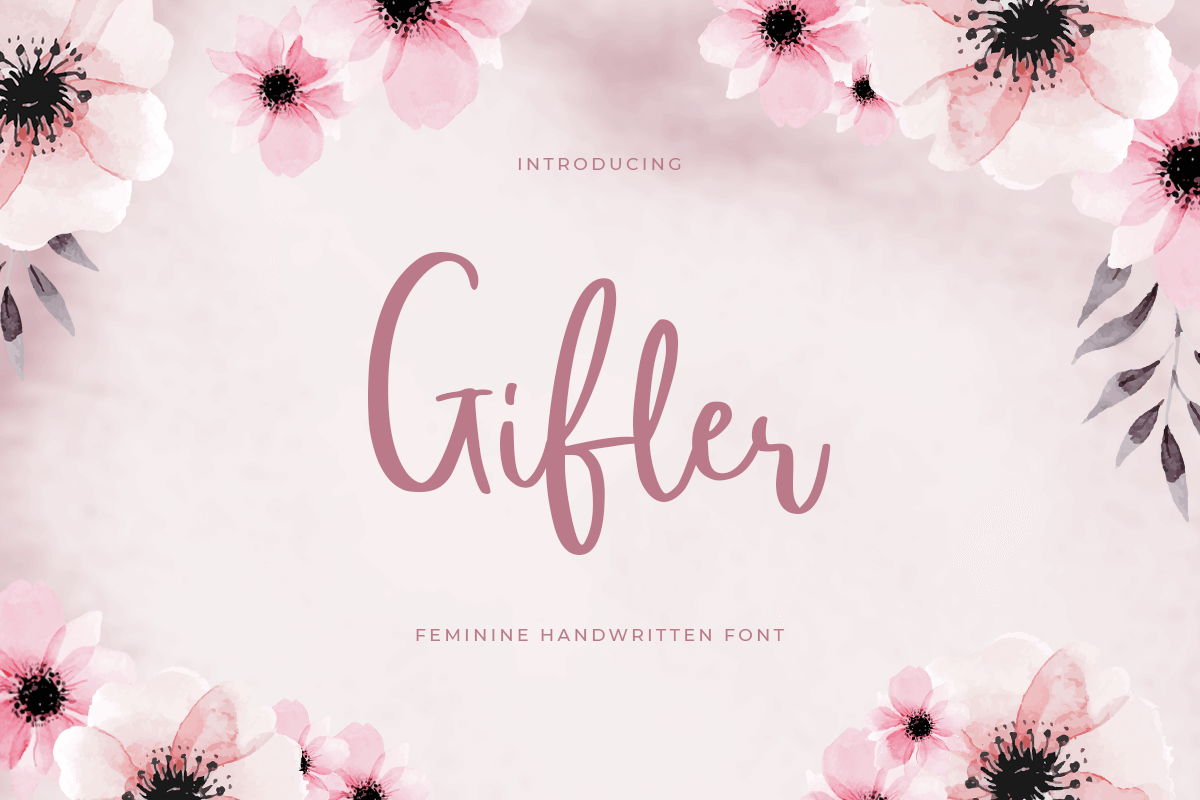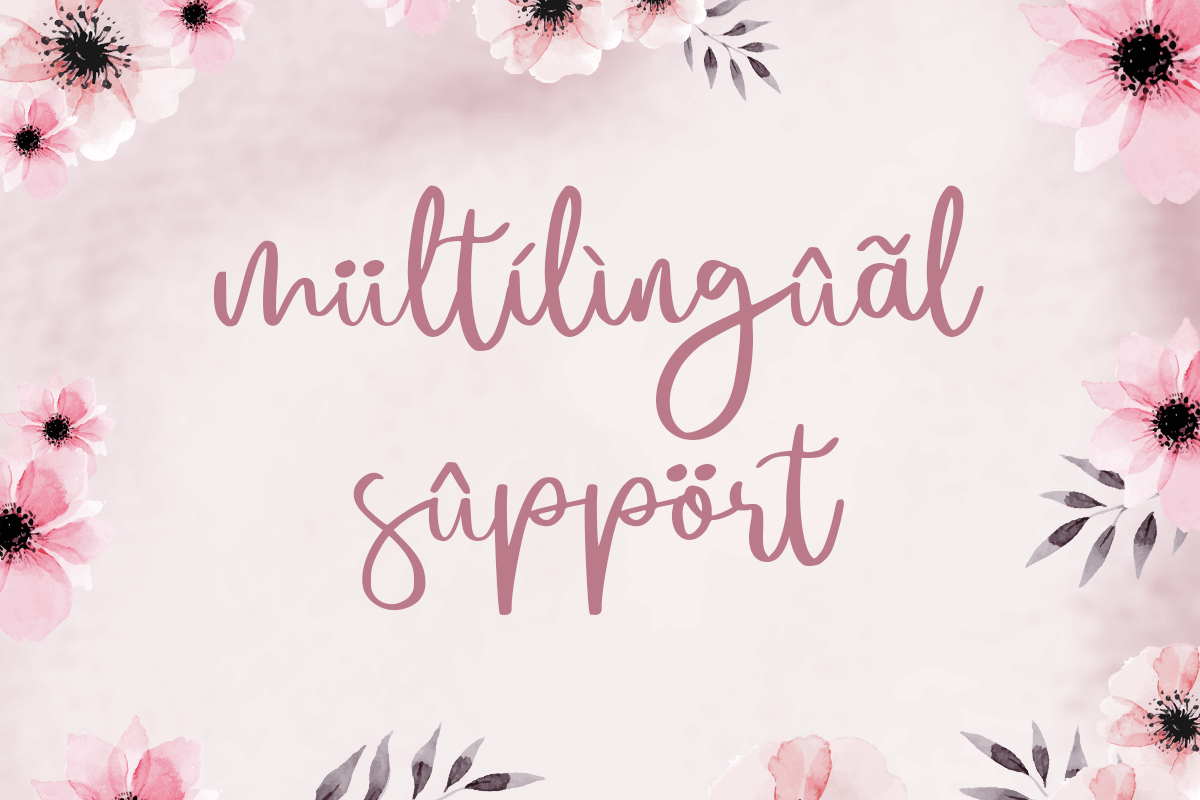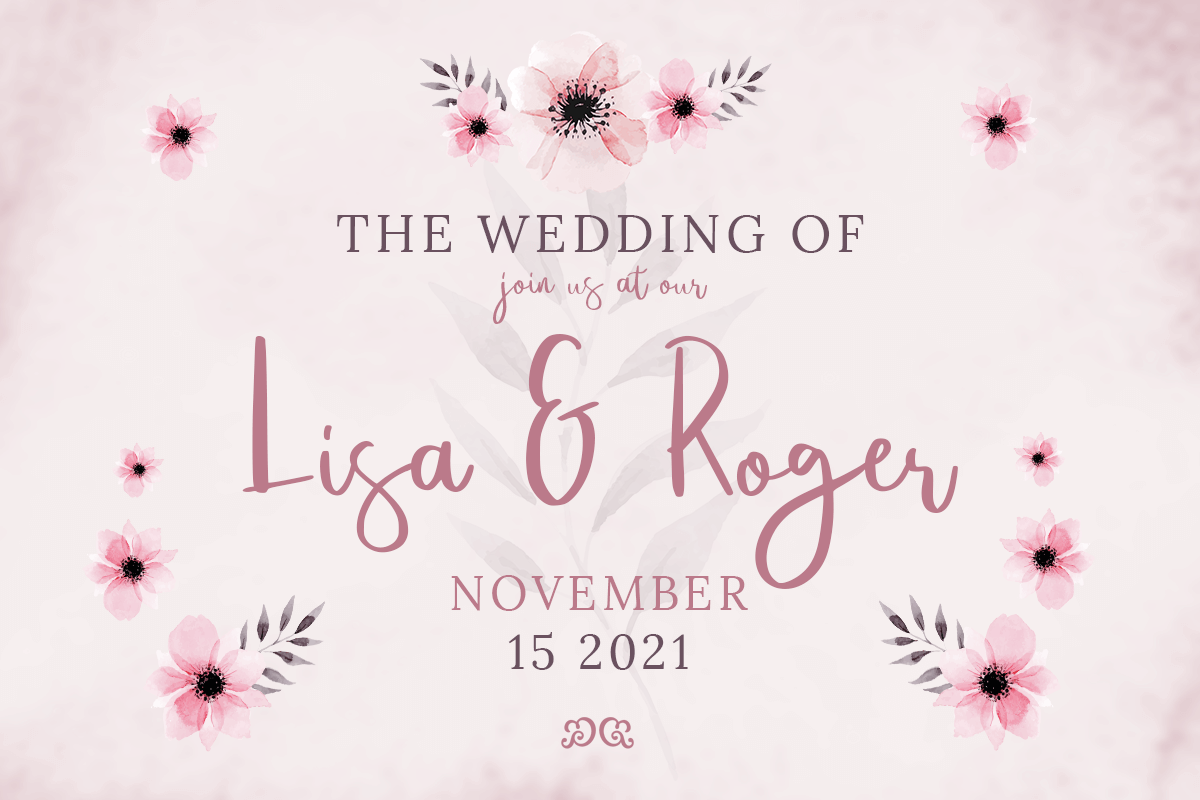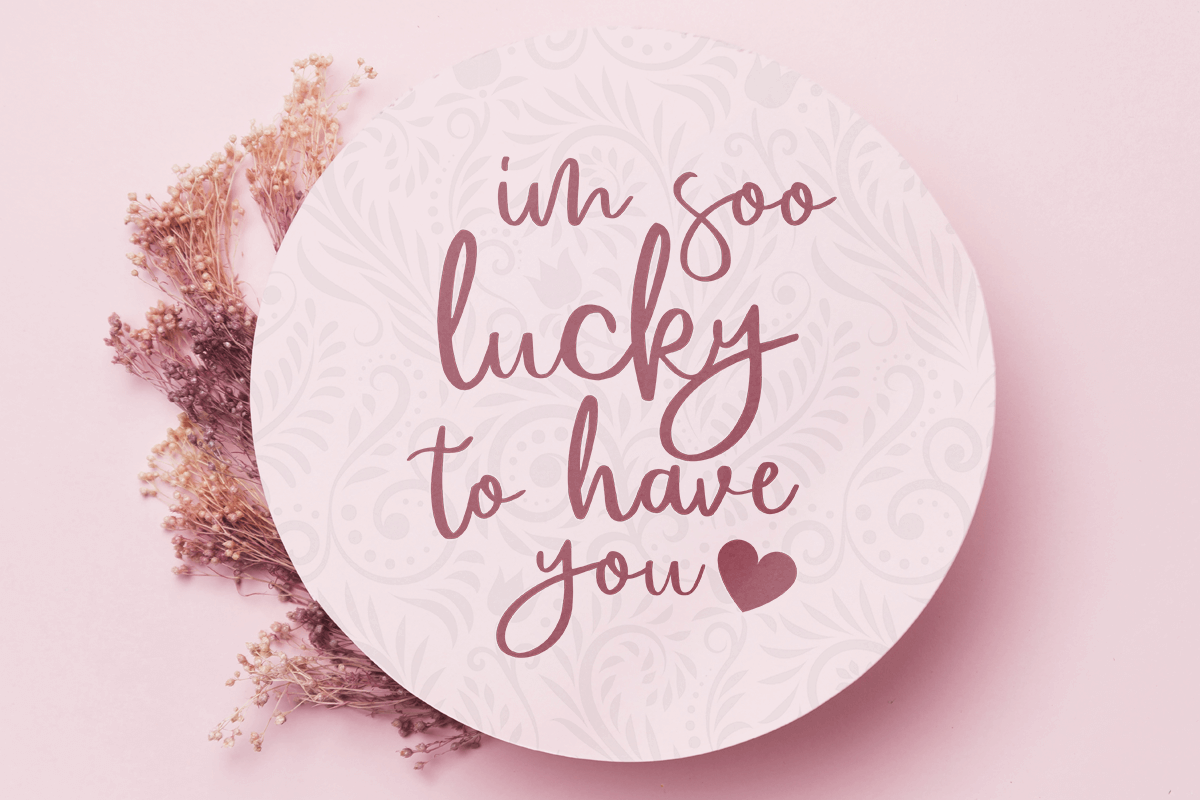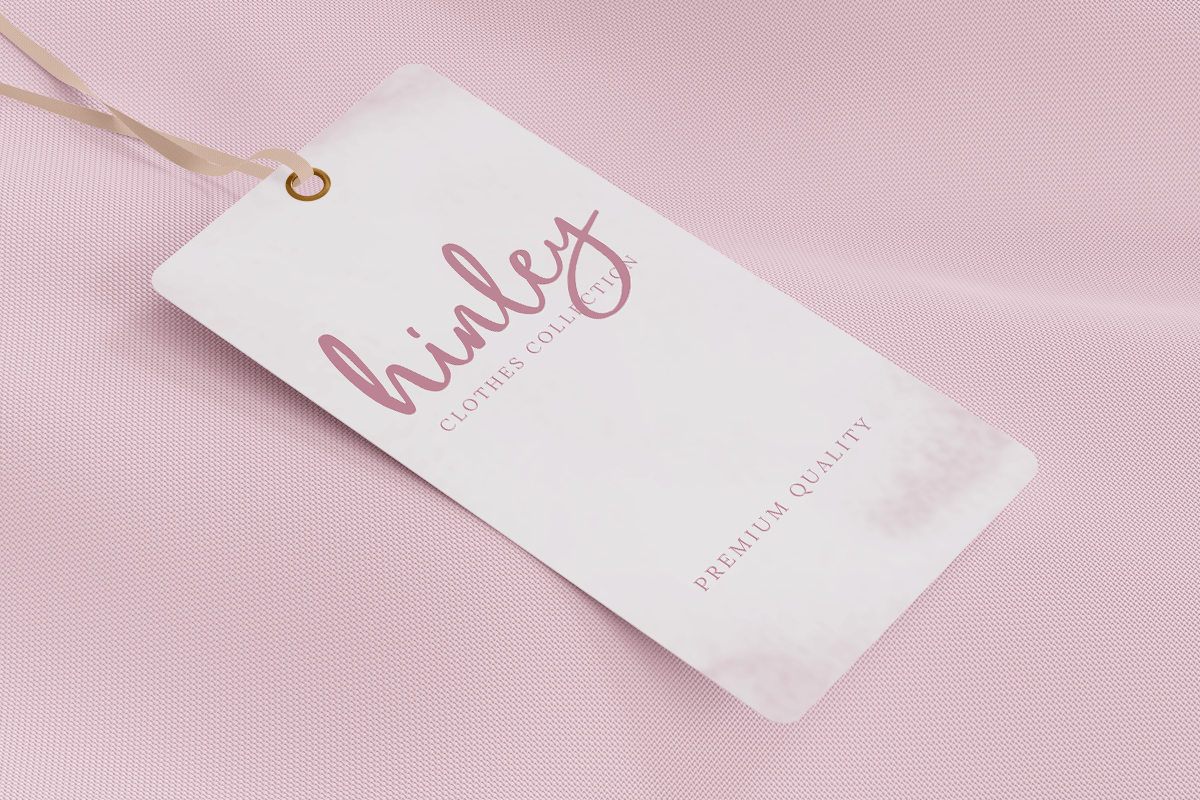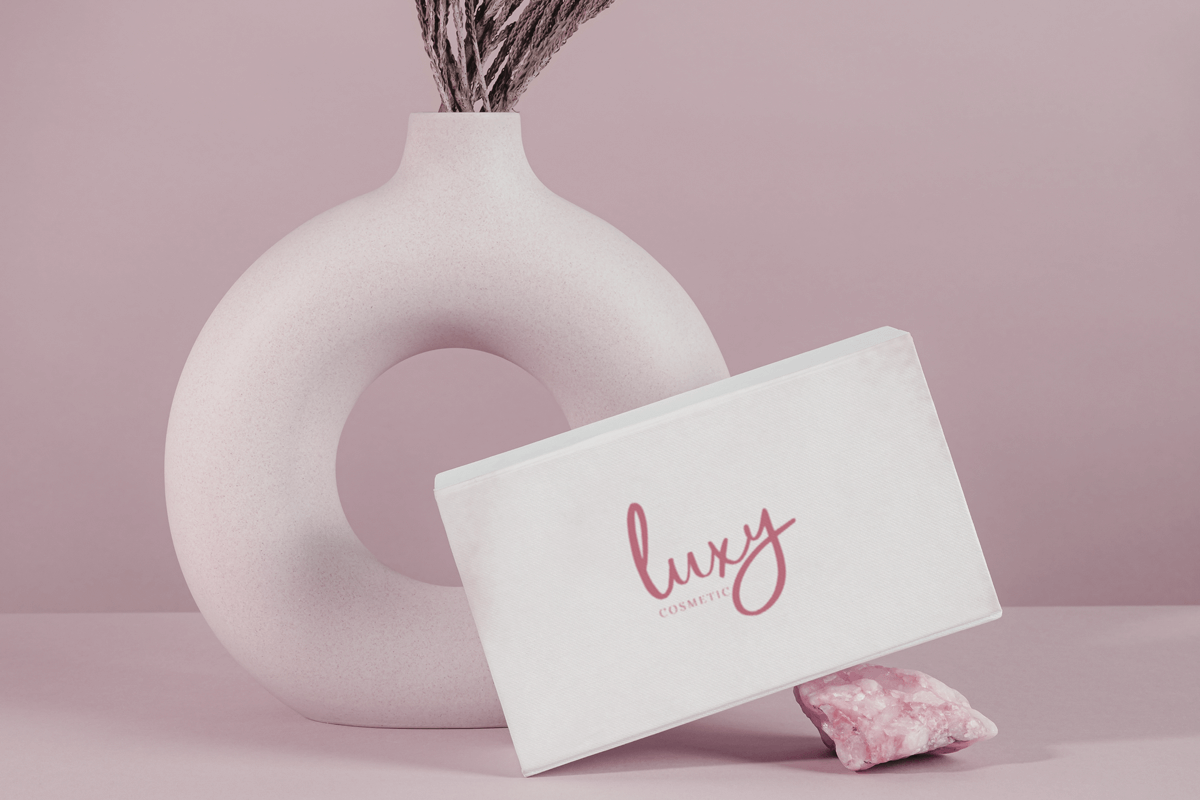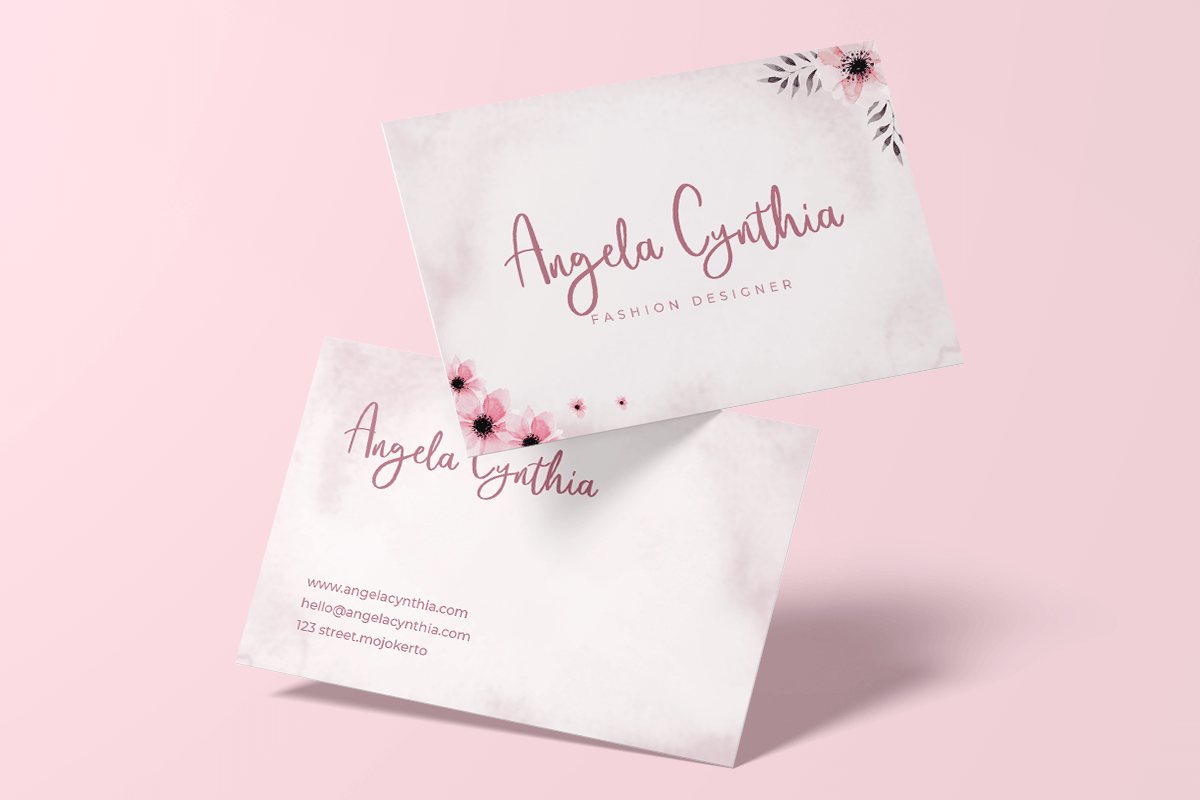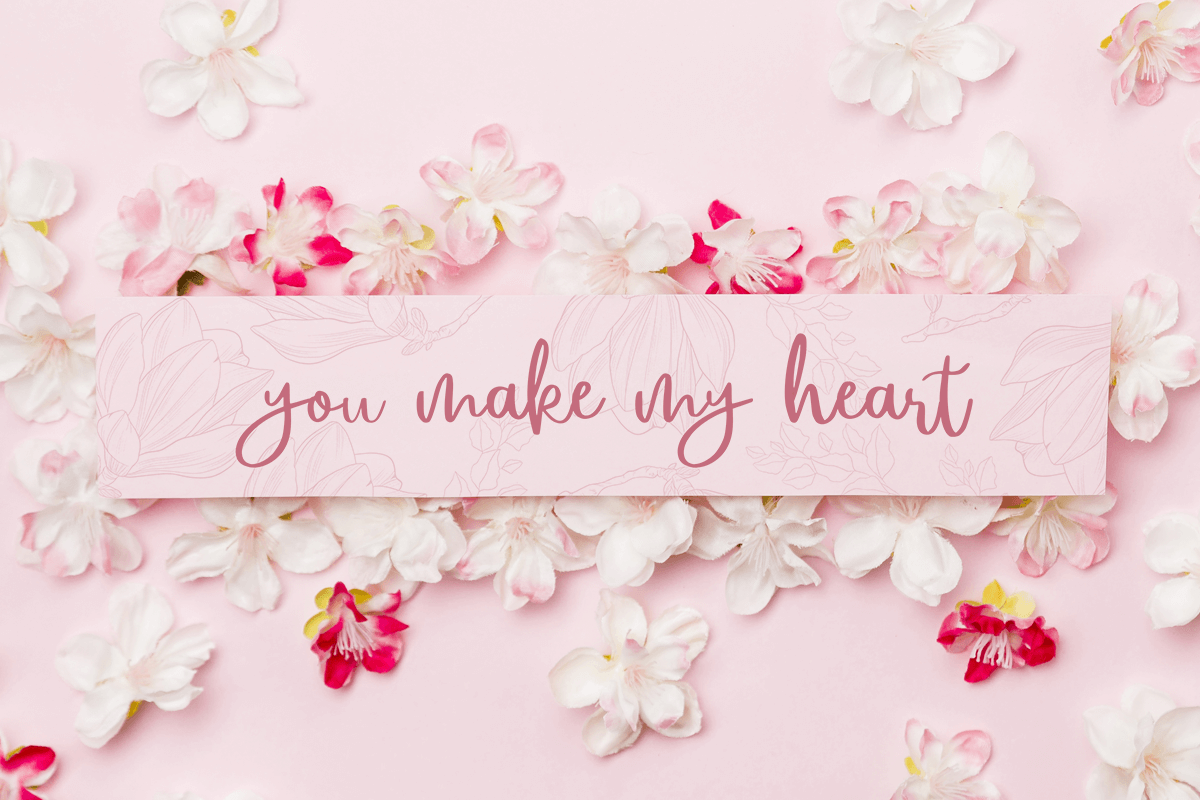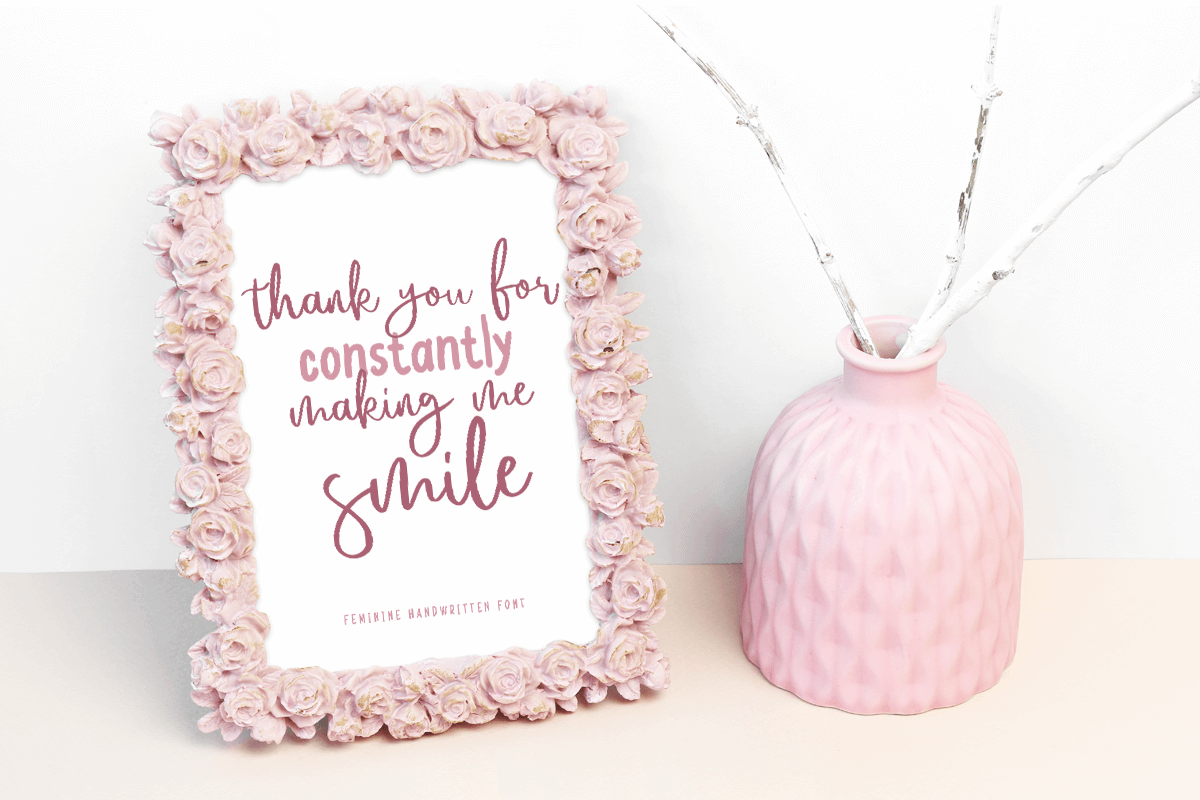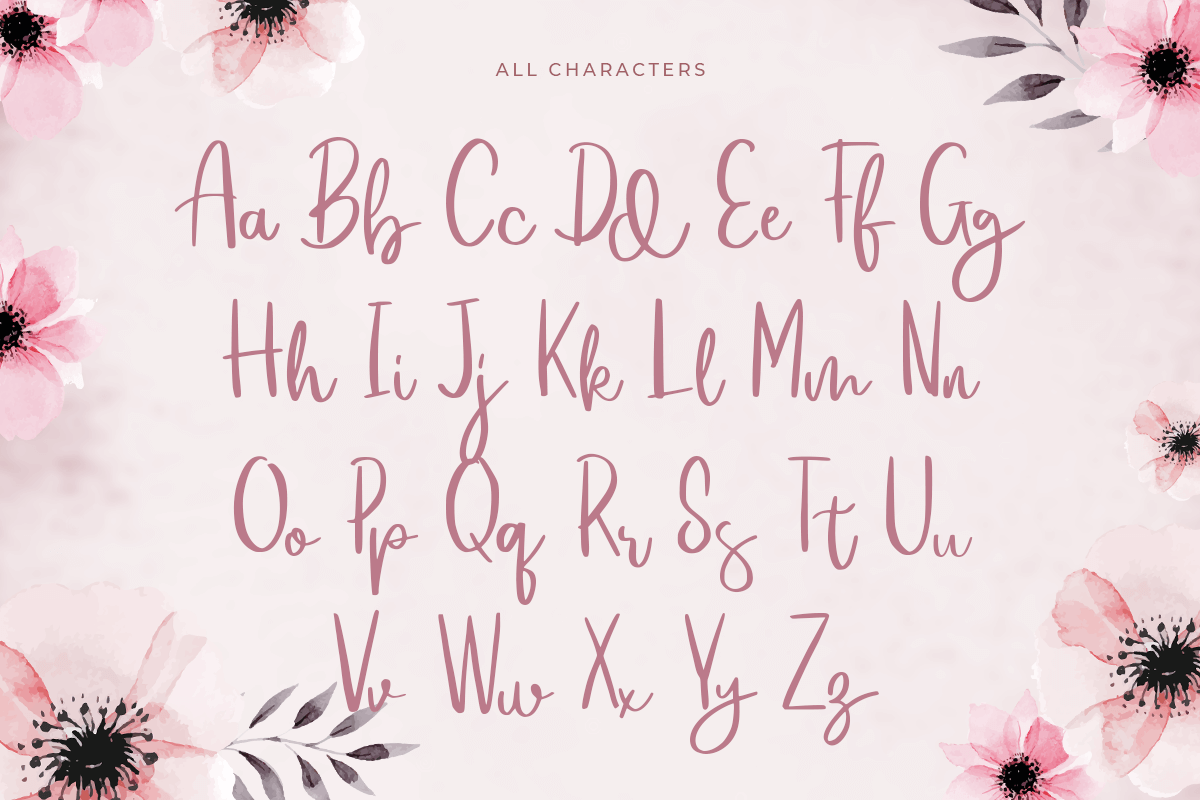
Gifler
-Feminine Handwritten Font
Gifler
Gifler a Feminine Handwritten Font. Inspired from beauty and feminine style very good for signature, stationery, logo, typography quotes, magazine or book cover, website needs.